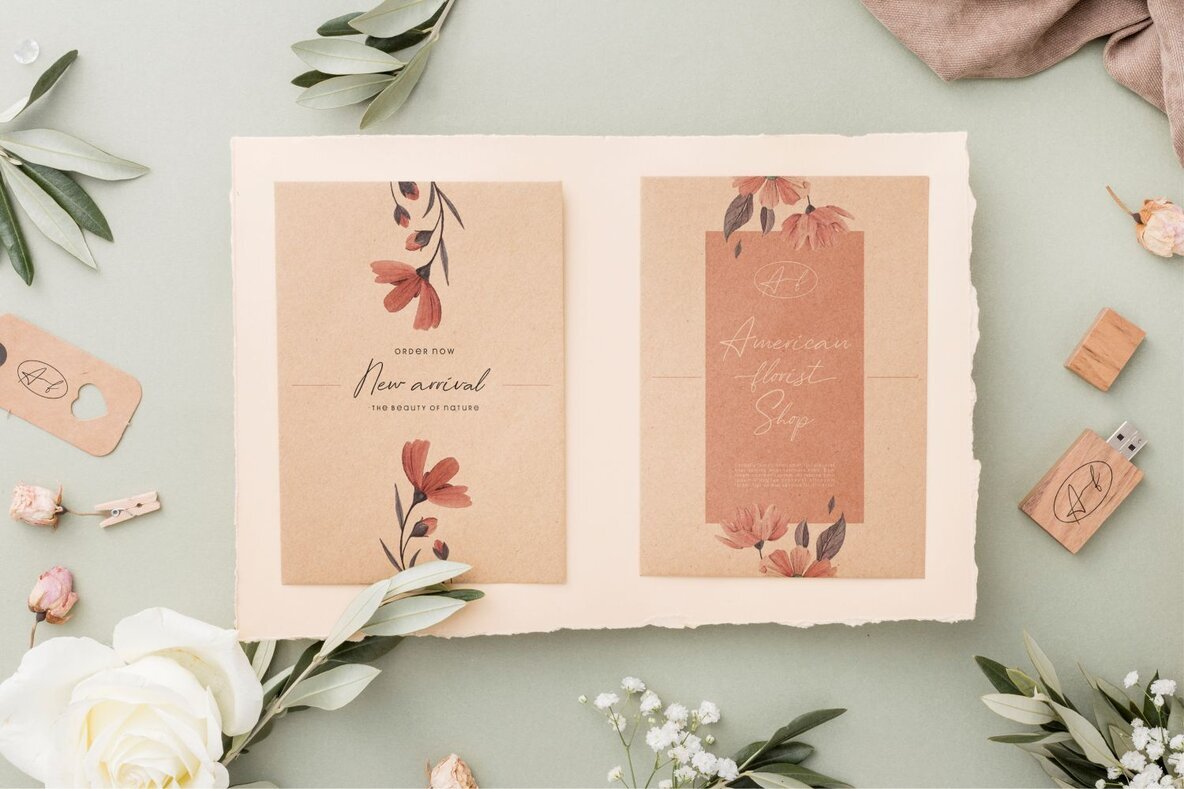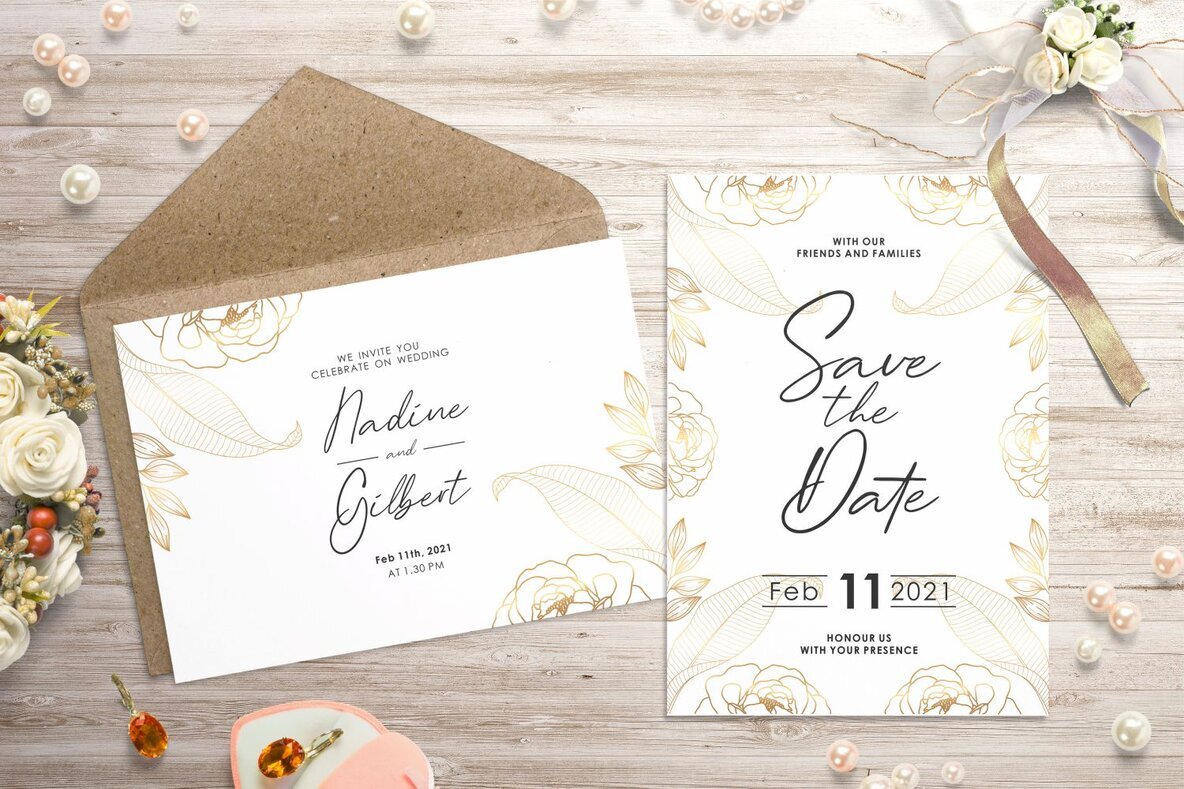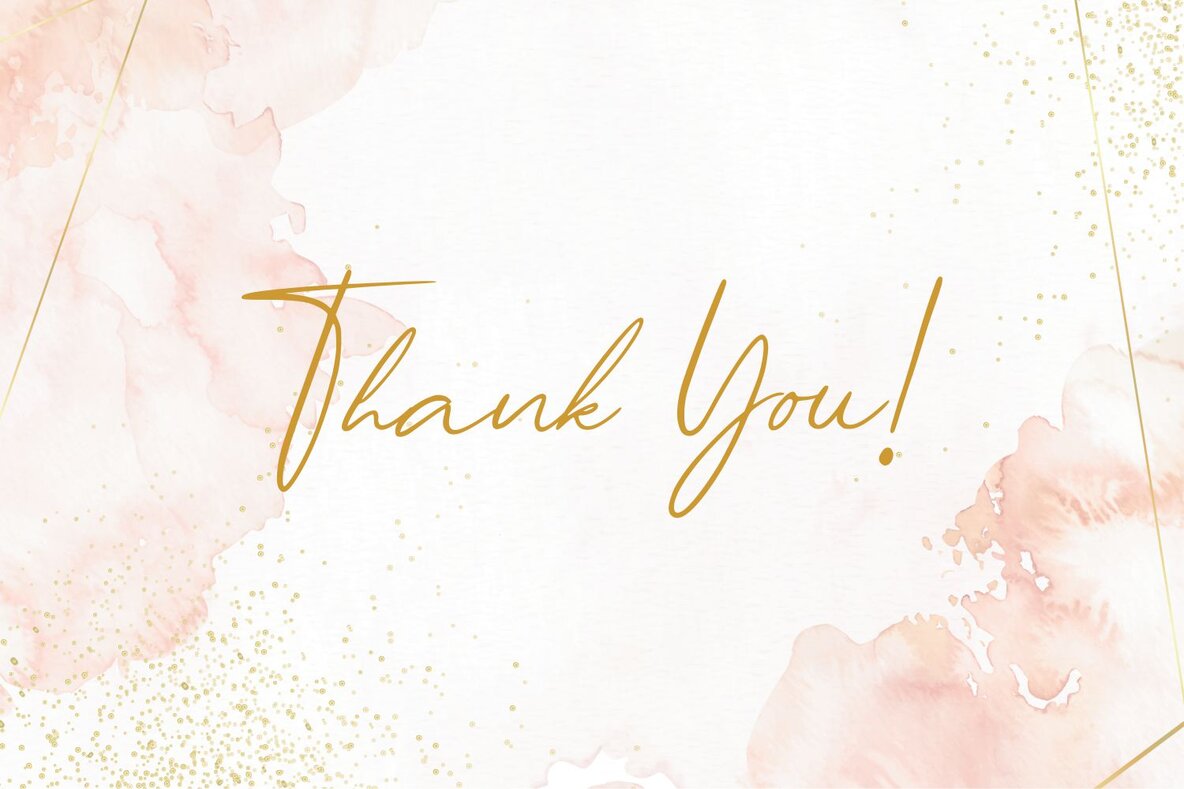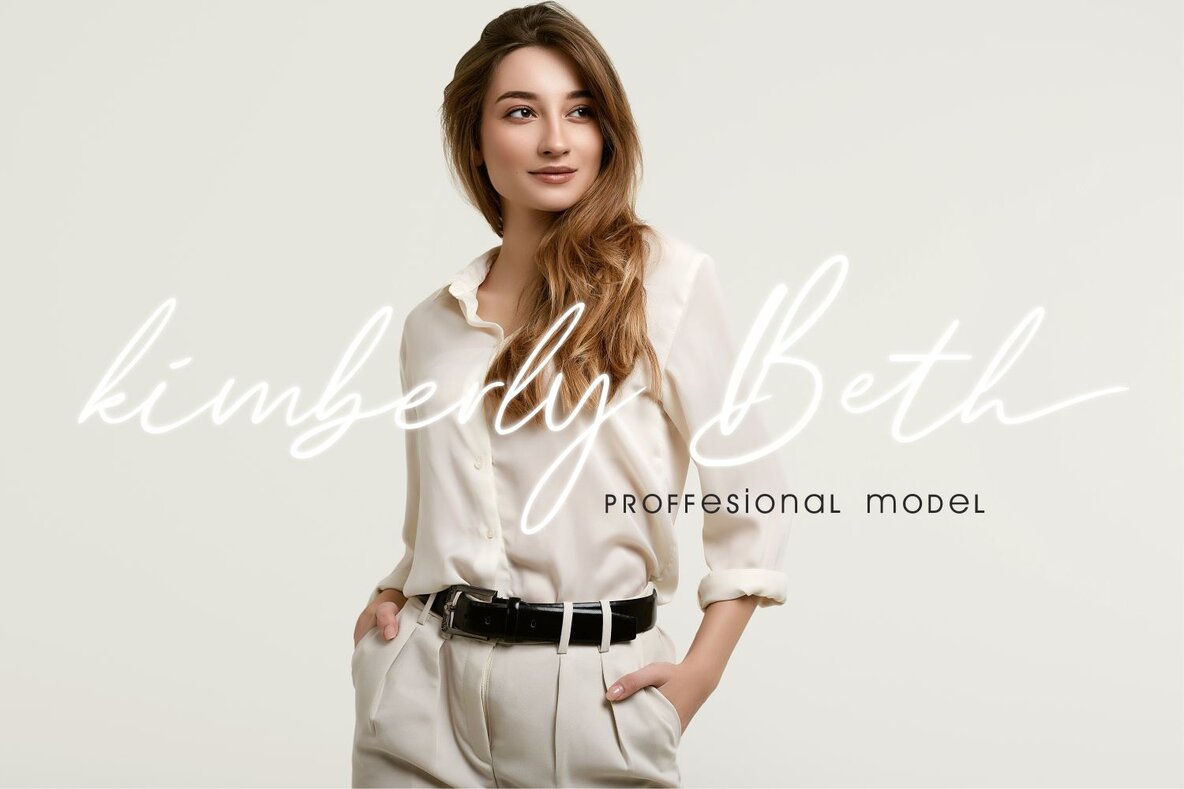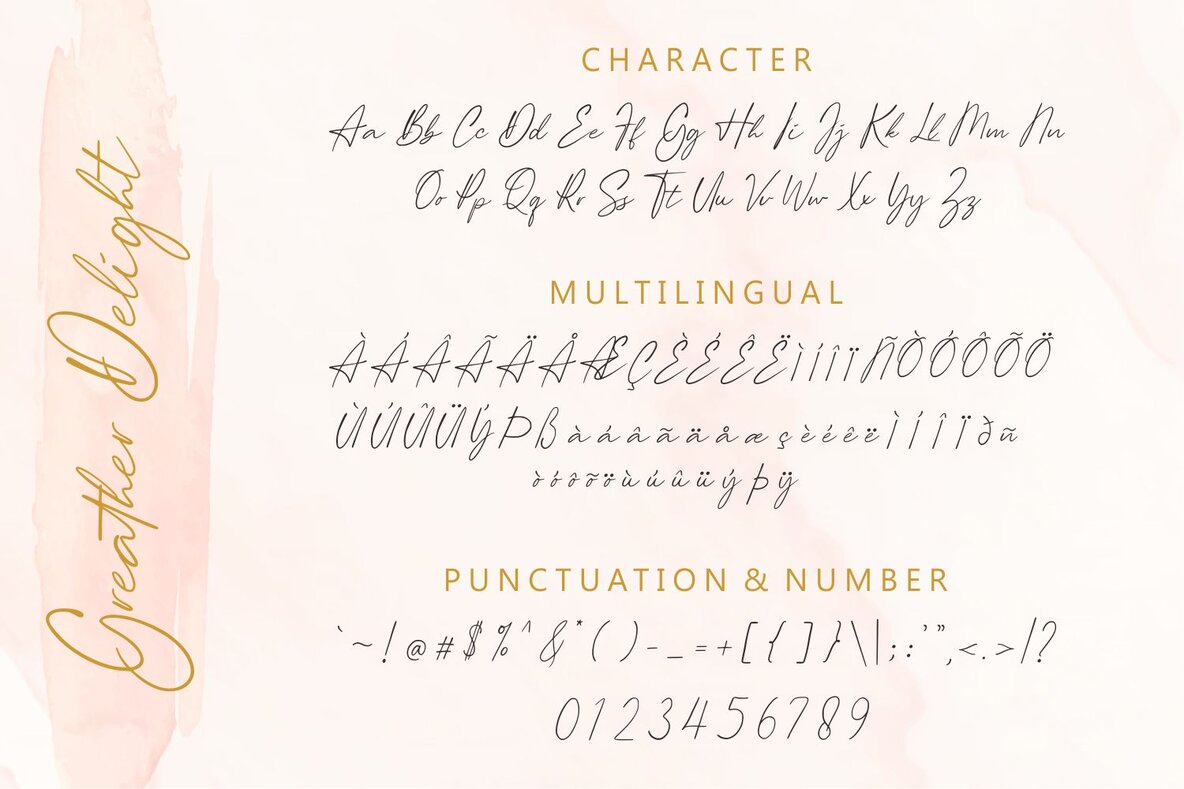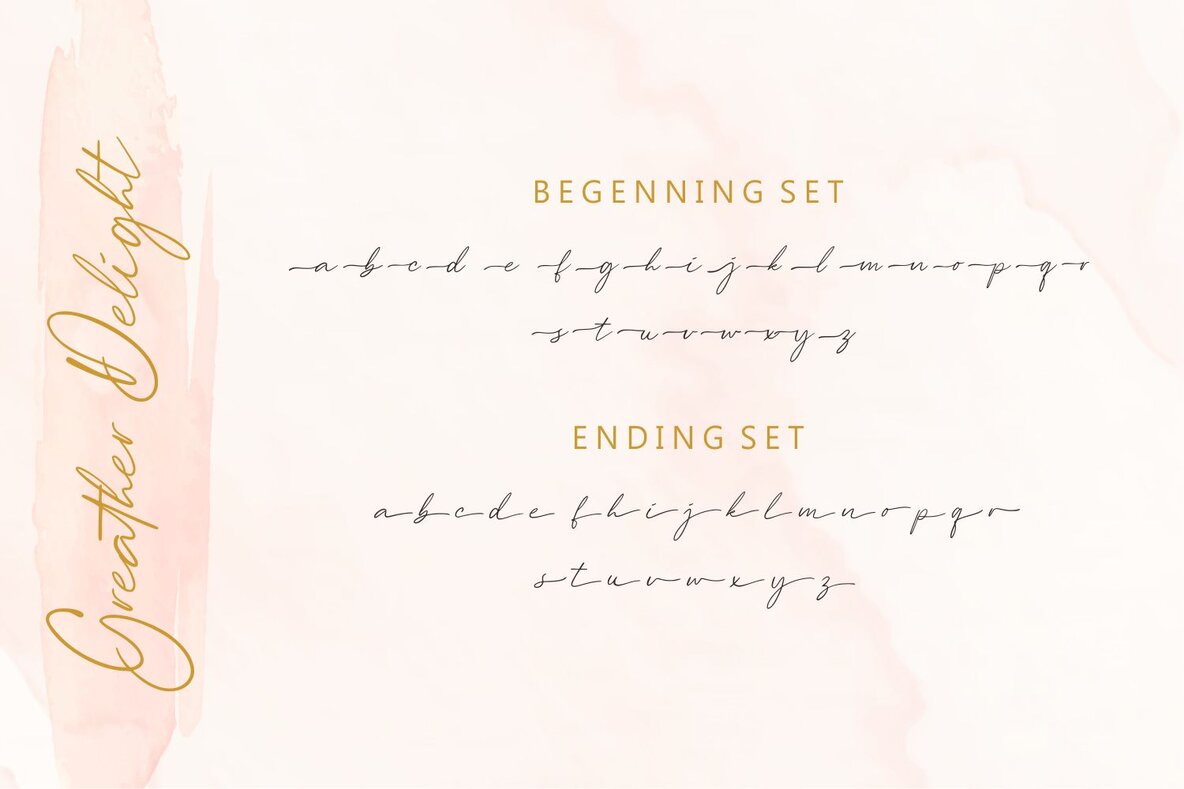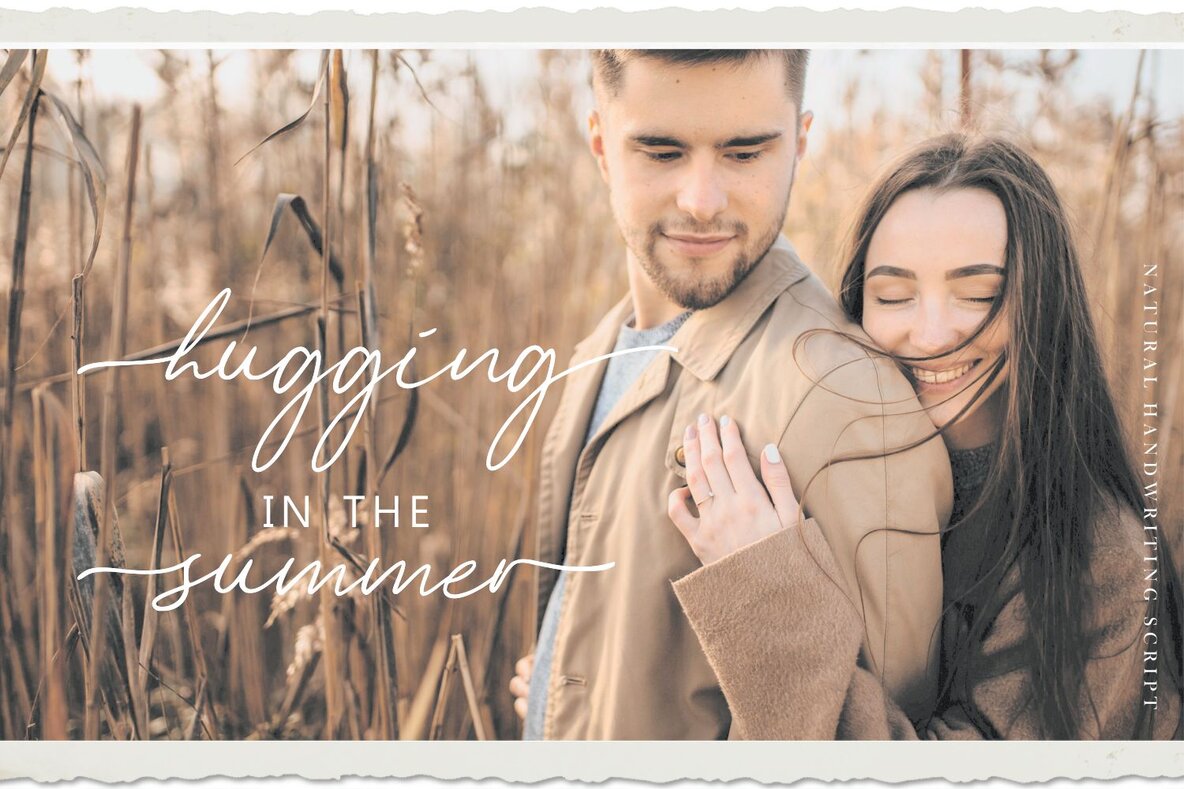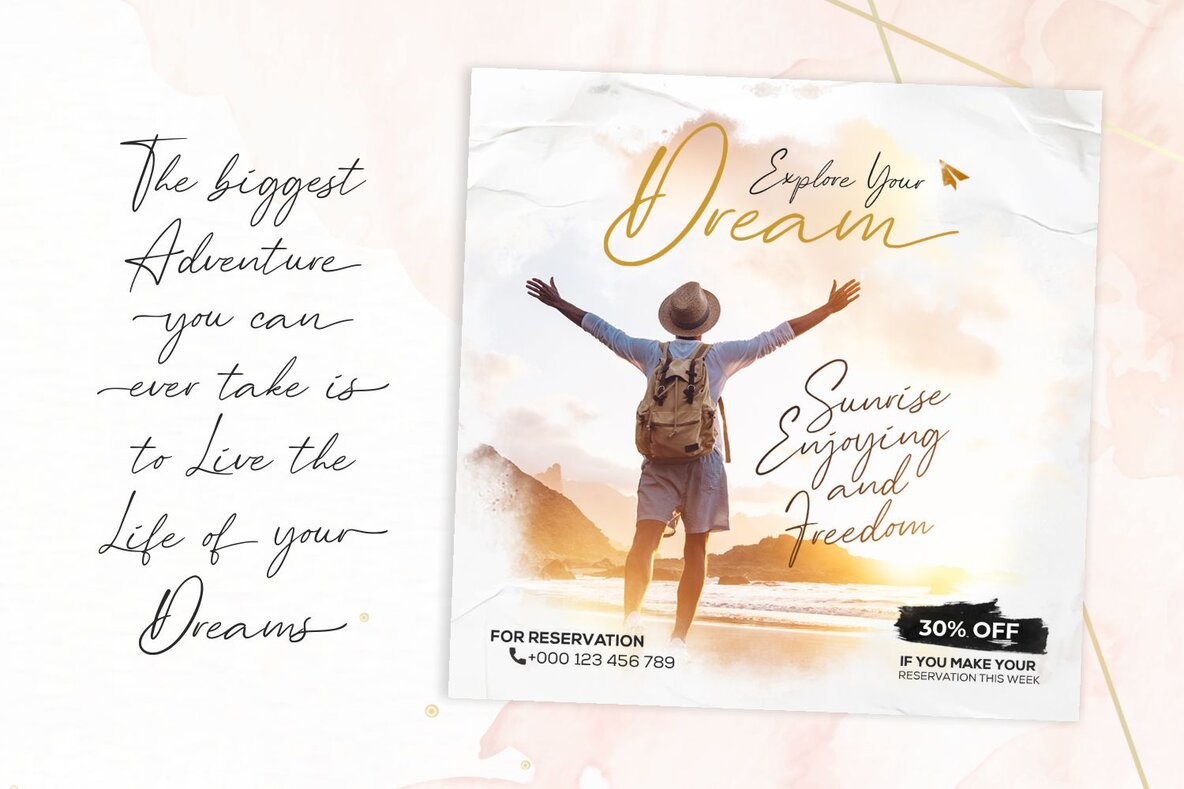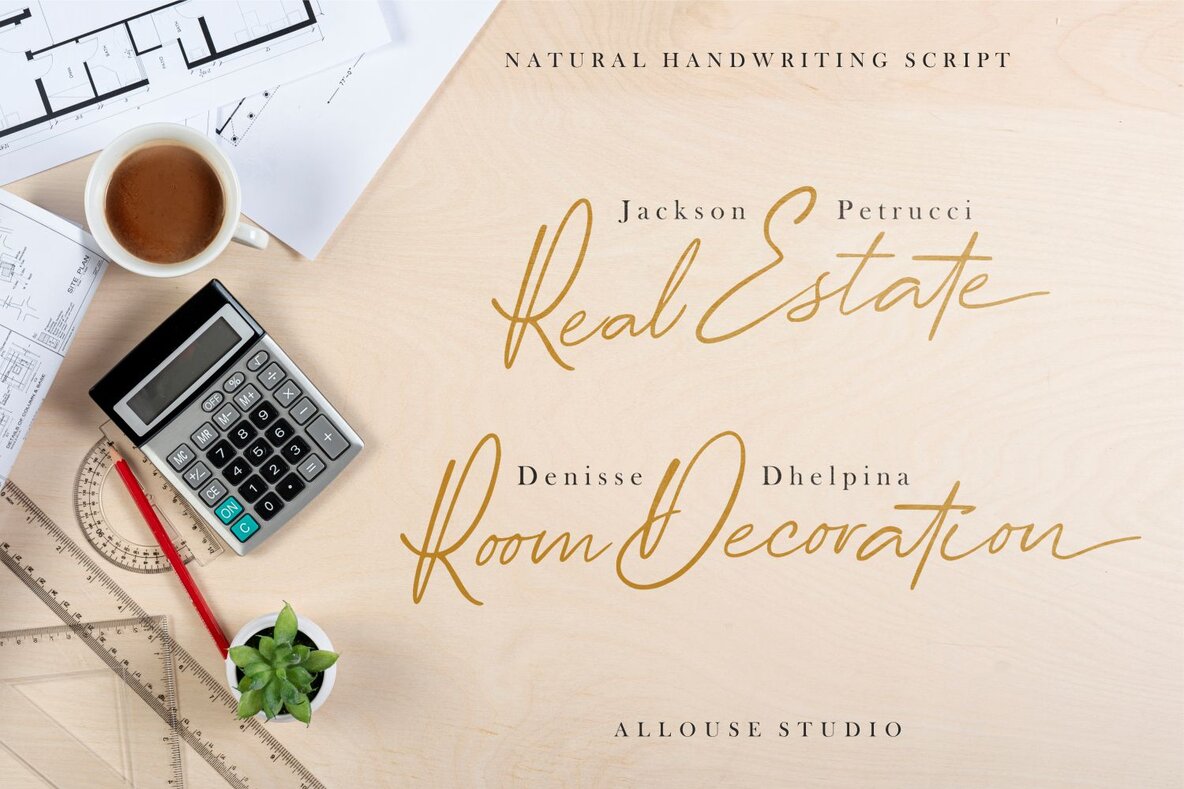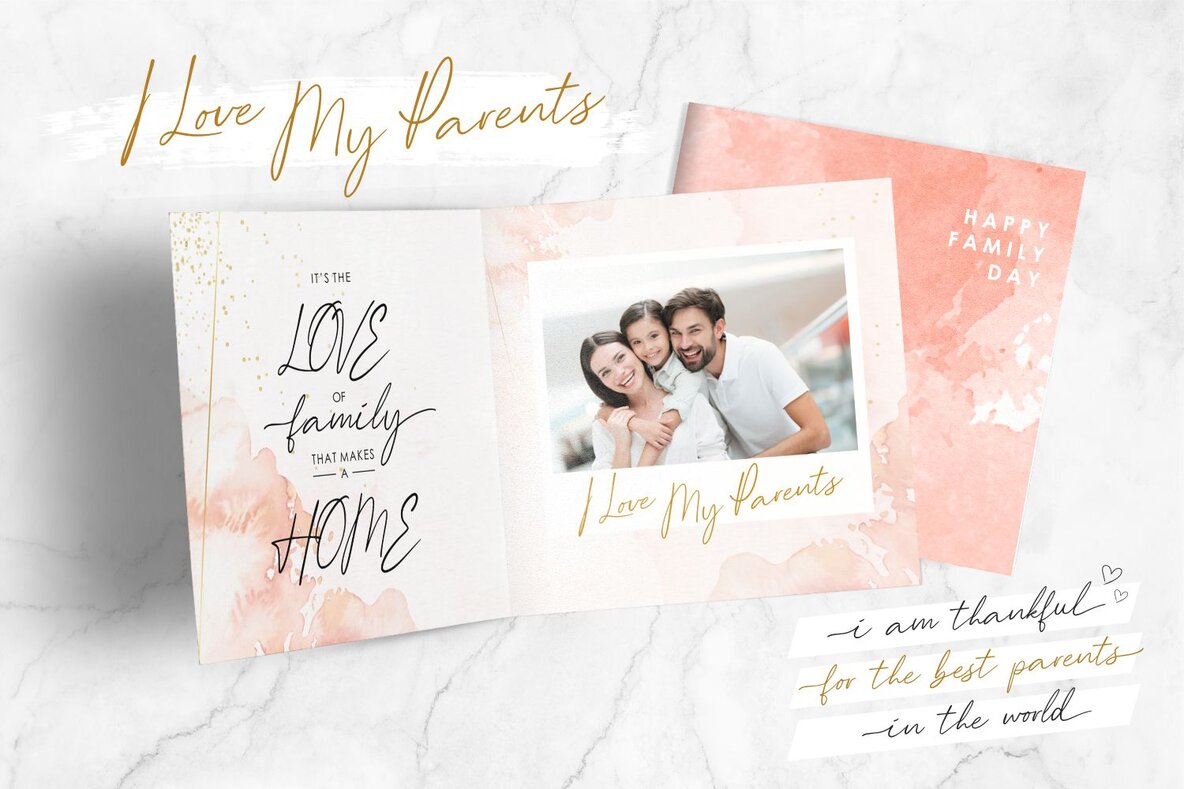
Greater Delight
Greater Delight by Allouse.Studio offers a versatile solution for a myriad of design projects. Whether your focus is on product packaging, branding, magazine design, social media graphics, or even wedding invitations, this font provides a unique touch that enhances textual expression.Greater Delight: A Versatile Font for Various Projects
Greater Delight stands out as a choice for designers seeking elegance and functionality. Its versatility makes it a staple in any designer's toolkit, capable of making any text pop against a background.